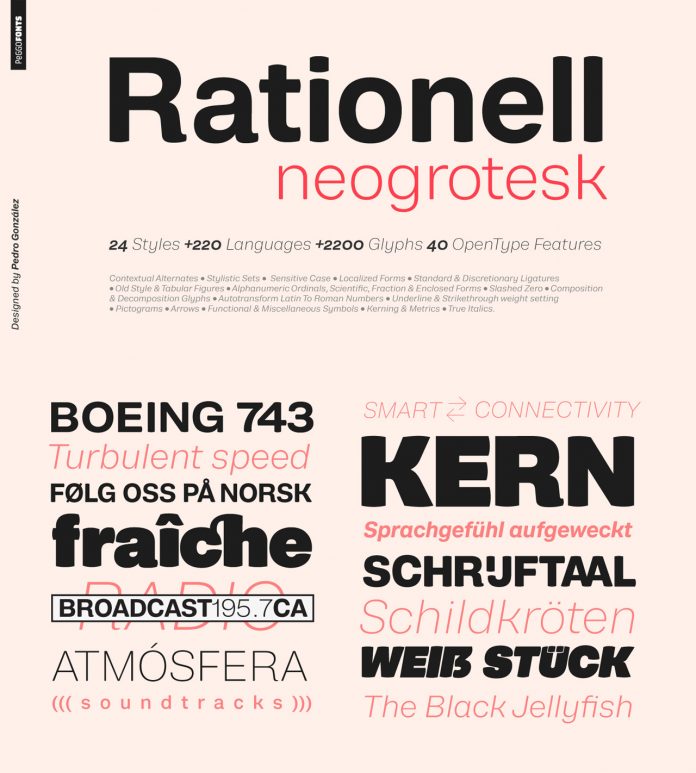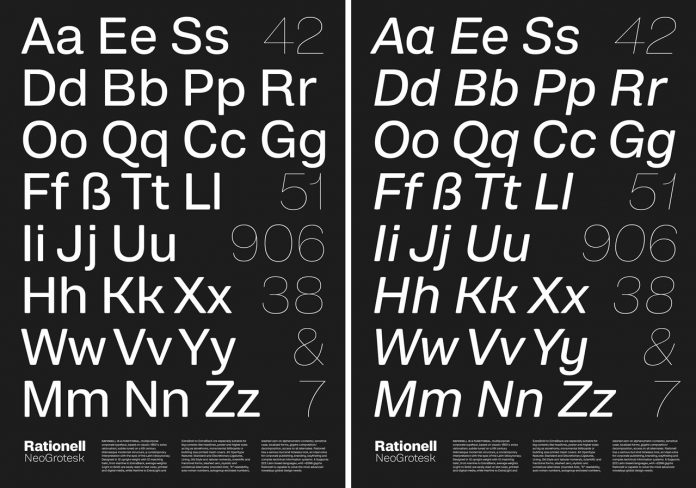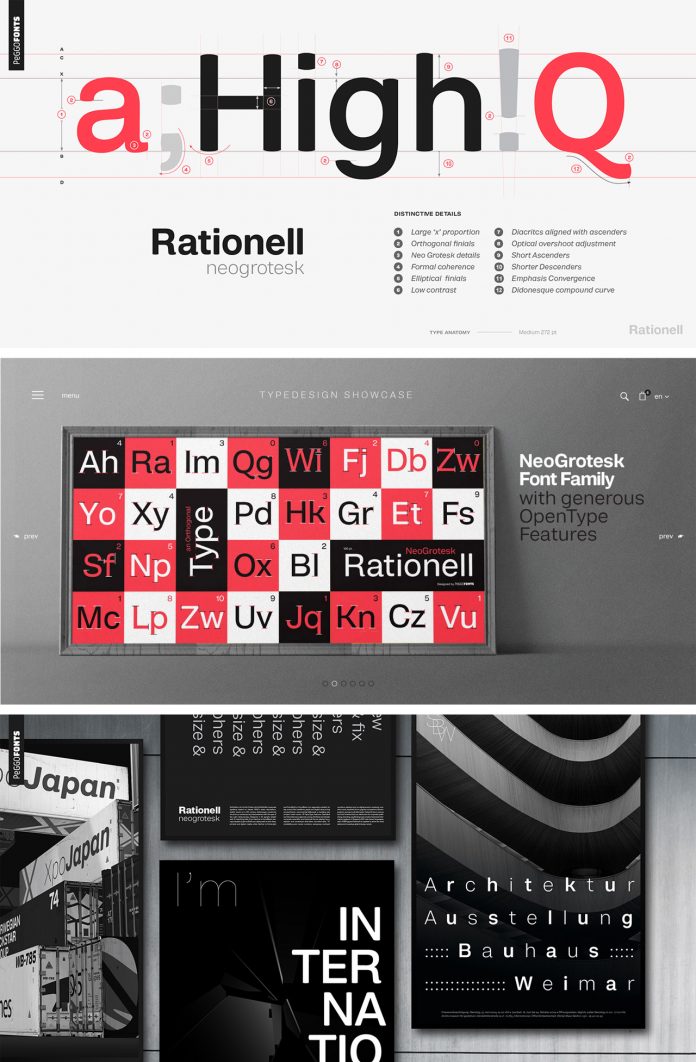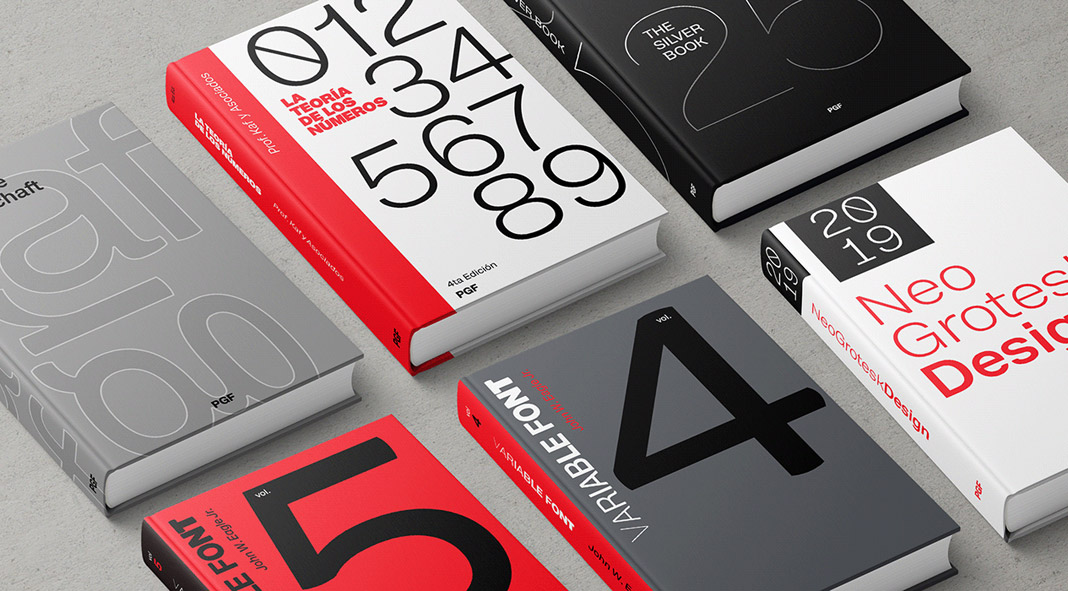
Rationell, a functional neogrotesk font family published by foundry PeGGO Fonts for extensive typographic use.
Based on classic 1950s Swiss rationalism, Rationell is a recently published multipurpose sans serif font family. The full family comes with 12 upright weights (ranging from Hairline to ExtraBlack) plus 12 matching Italics. Its average weights (Light to Bold) are easy to read in all common text sizes no matter if it’s printed or on-screen. Rationell’s Hairline to ExtraLight weights as well as the ExtraBold to ExtraBlack weights are well suited for headlines, posters, signage, monumental billboards or building-size printed mesh covers. Learn more below or click on the following link.
The Rationell font family is characterized by a serious yet timeless look. It is ideal for applications such as corporate publishing, branding, wayfinding or technical information systems. With +2200 glyphs, the typeface supports 222 Latin-based languages. Furthermore, it is equipped with 40 OpenType features including Standard and Discretionary Ligatures, Lining, Old Style and tabular numerals, scientific and fractional forms, slashed zero, stylistic and contextual alternates (rounded dots, “Il” readability, auto roman numbers, auto group enclosed numbers, slashed zero on alphanumeric contexts), sensitive case, localized forms, glyphs composition/decomposition, and access to all alternates.